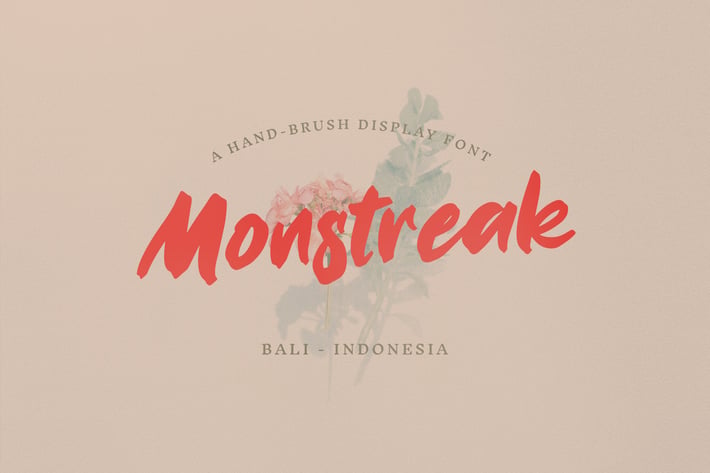
Monstreak – Display Brush Font
Introducing Monstreak a hand brush display font. The font is great for creating wordmarks, titles, posters, cover music art, print template, business card, logo, t-shirt, quote, web design, and any other graphic design.